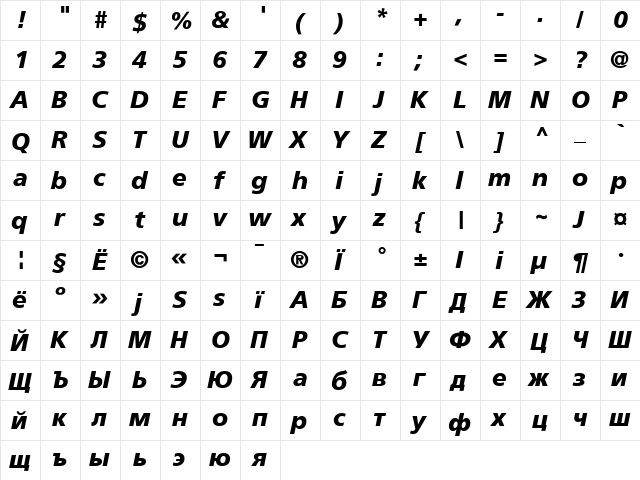
Foreigner-BoldItalic Font Preview
Design Context for Foreigner-BoldItalic Typeface
Foreigner-BoldItalic offers clean, dependable letterforms without strong stylistic allegiance, making it a practical choice for designers who need flexibility. The slanted form adds forward momentum and visual energy. The heavy weight commands attention and anchors typographic hierarchies.